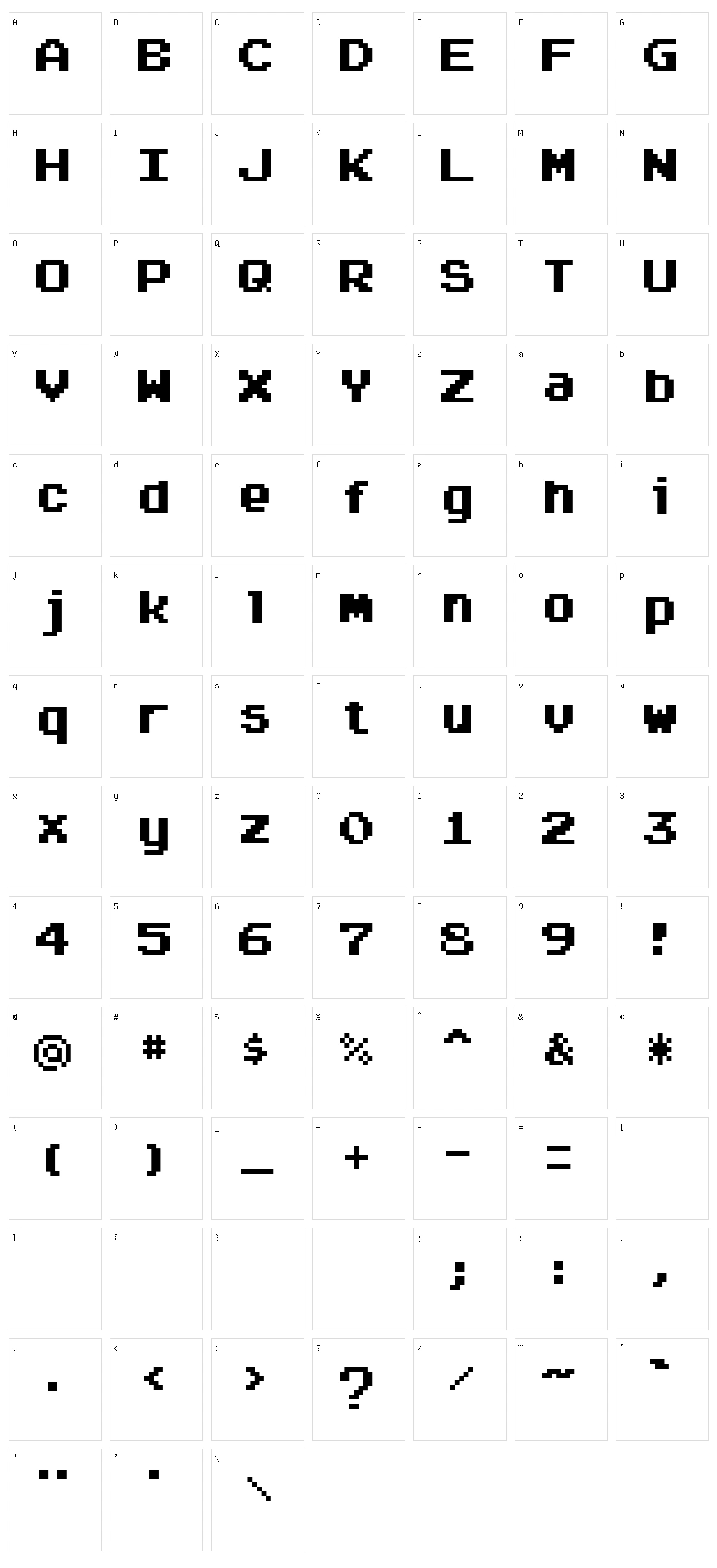
Arcadepix
Designed by: Reekee of Dimenzioned
Now when you choose to use my fonts u got to know how to use them!
Pixedpack fonts are specifically designed to look crisp (aliased) in Flash. However, they work in other applications as well.
The price for crispness is that you must follow the guidelines included here. If you do not, this font will blured like any
other font and look unsuitable.
1. The fonts must be used at the intended point size for optimal results.
This is the table for all the fonts:
-Pixed at 10 points or mutiplyed by whole number eg. 20, 30, 40
-Fivepix at 10 points or multiplyed by whole number eg 20, 30, 40
-Regupix at 10 points or multiplyed by whole number eg. 20, 30 ,40
-RegupixBold at 10 points or multiplyed by whole number eg. 20, 30 ,40
-Tinypix at 8 points or multiplyed by whole number eg. 16, 24, 32
-Flatpix at 10 points or multiplyed by whole number eg. 20, 30, 40
-Arcadepix at at 10 points or multiplyed by whole number eg. 20, 30, 40
-Zxpix at at 10 points or multiplyed by whole number eg. 20, 30, 40
-Chicpix at 12 points or multiplyed by whole number eg 24, 36
2. The font must be placed on a whole pixel (14.7 is no good. It must be 14.0 or 15.0). Use the Info panel in Flash to determine
it's x and y position and to set the point of registration.
3. Preview the your work at 100% in the. Otherwise the font will appear blured.